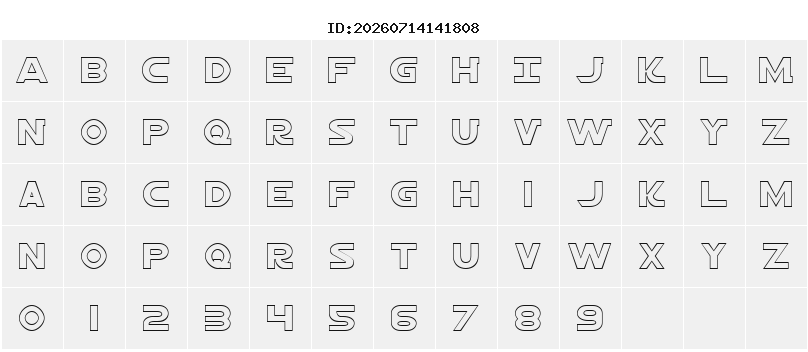
Jedi Hollow Preview
• Font Name: Jedi Hollow
• Full Font Name: Jedi Hollow Normal
About Jedi Hollow.ttf
Jedi Hollow.ttf is a modern, elegant sans-serif font designed for ultimate readability and visual harmony. Perfect for branding, headlines, web design, and print materials.